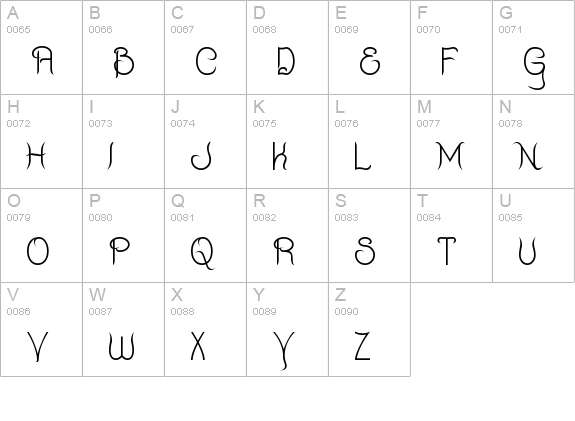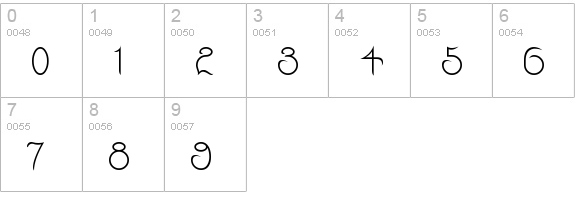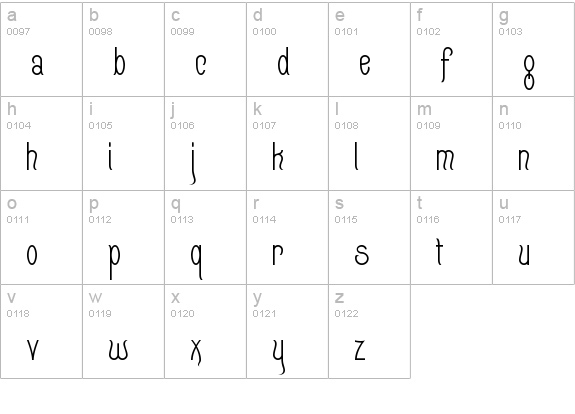
Quixotte Font Details
Introducing Quixotte, a captivating and versatile font that effortlessly merges elegance with a touch of whimsy. This extraordinary typeface is sure to ignite the imagination and transport your designs to new heights of creativity. Quixotte boasts a stunning array of characters, each meticulously crafted to ensure legibility and visual impact. Its graceful curves and intricate details captivate the eye, making it the perfect choice for headlines, logos, invitations, and everything in between. Whether you're designing for a sophisticated event or looking to add a touch of charm to your branding, Quixotte is the ideal companion. What sets Quixotte apart is not only its exceptional design, but also its accessibility. This font is freely available to download at FontsMarket.com, allowing you to bring your ideas to life without any obstacles. With just a few clicks, you can add this extraordinary font to your creative arsenal and unlock a world of possibilities. Quixotte is compatible with various design software and can be easily integrated into your projects. Its versatility knows no bounds, as it seamlessly adapts to both print and digital media. From posters to websites, packaging to social media graphics, Quixotte will effortlessly elevate your designs and leave a lasting impression. Whether you're a seasoned designer or just starting out, Quixotte is a valuable addition to your font collection. Its timeless appeal and remarkable craftsmanship ensure that it will stand the test of time and continue to inspire your creative endeavors. Don't miss out on the opportunity to enhance your designs with the enchanting beauty of Quixotte. Visit FontsMarket.com today and freely download this extraordinary font, unlocking a world of typographic possibilities that will leave a lasting impression on your audience.